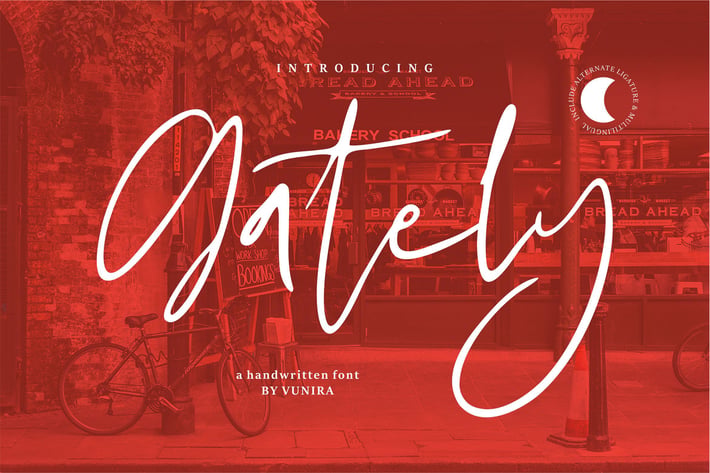
Gately | A Handwritten Font
Gately | A Handwritten Font with a calligraphy style, So beautiful on invitation like greeting cards, branding materials, business cards, quotes, posters, and more!